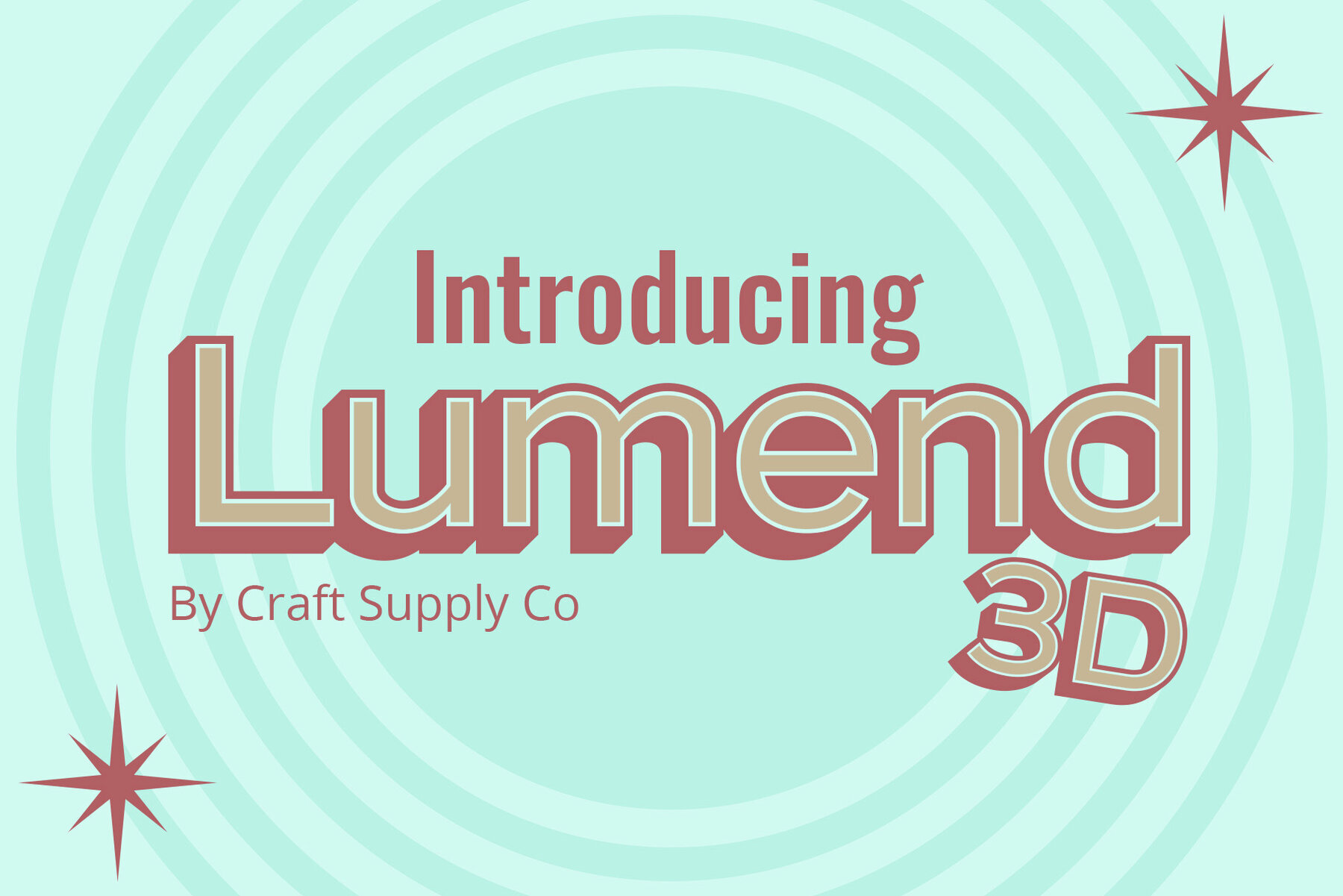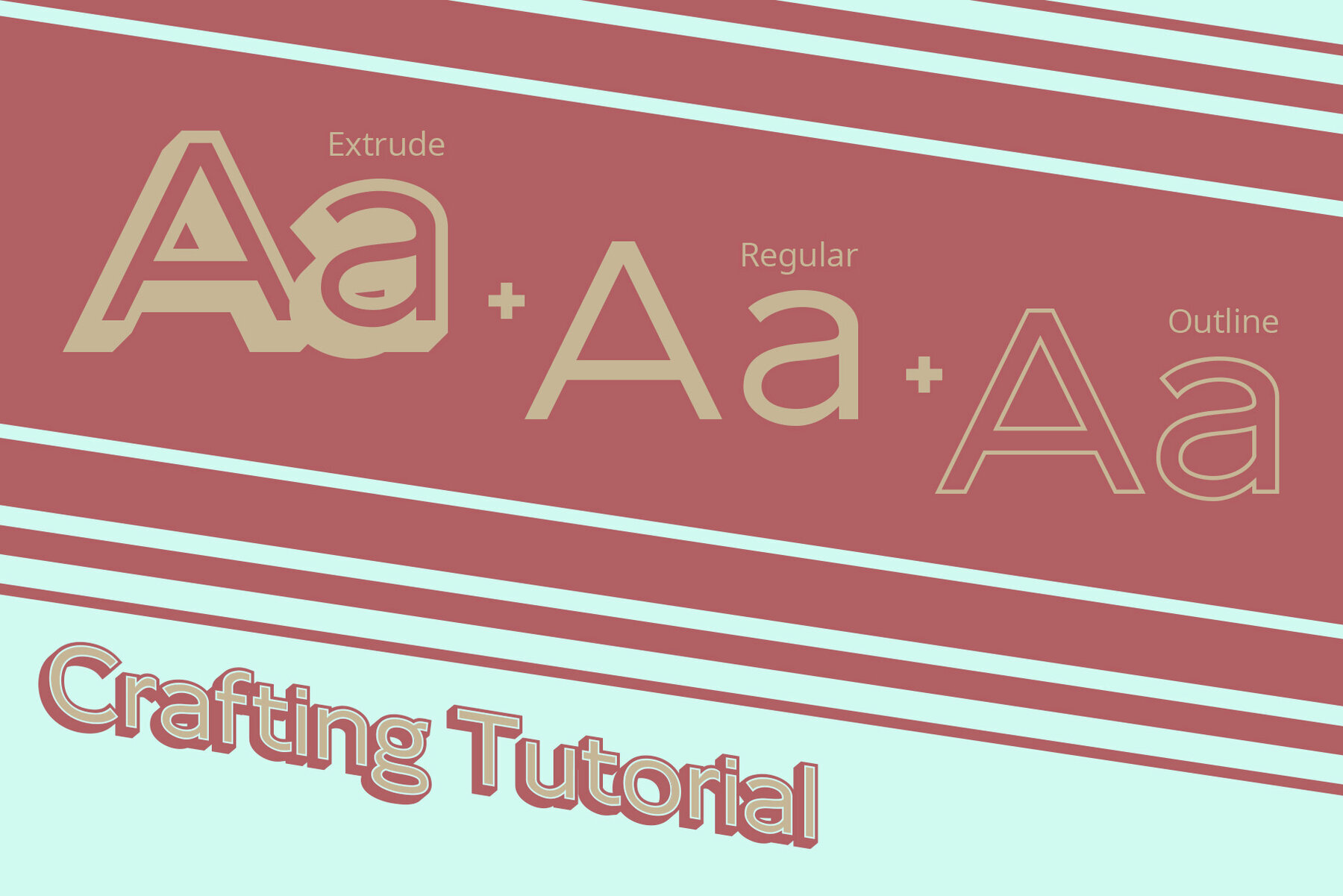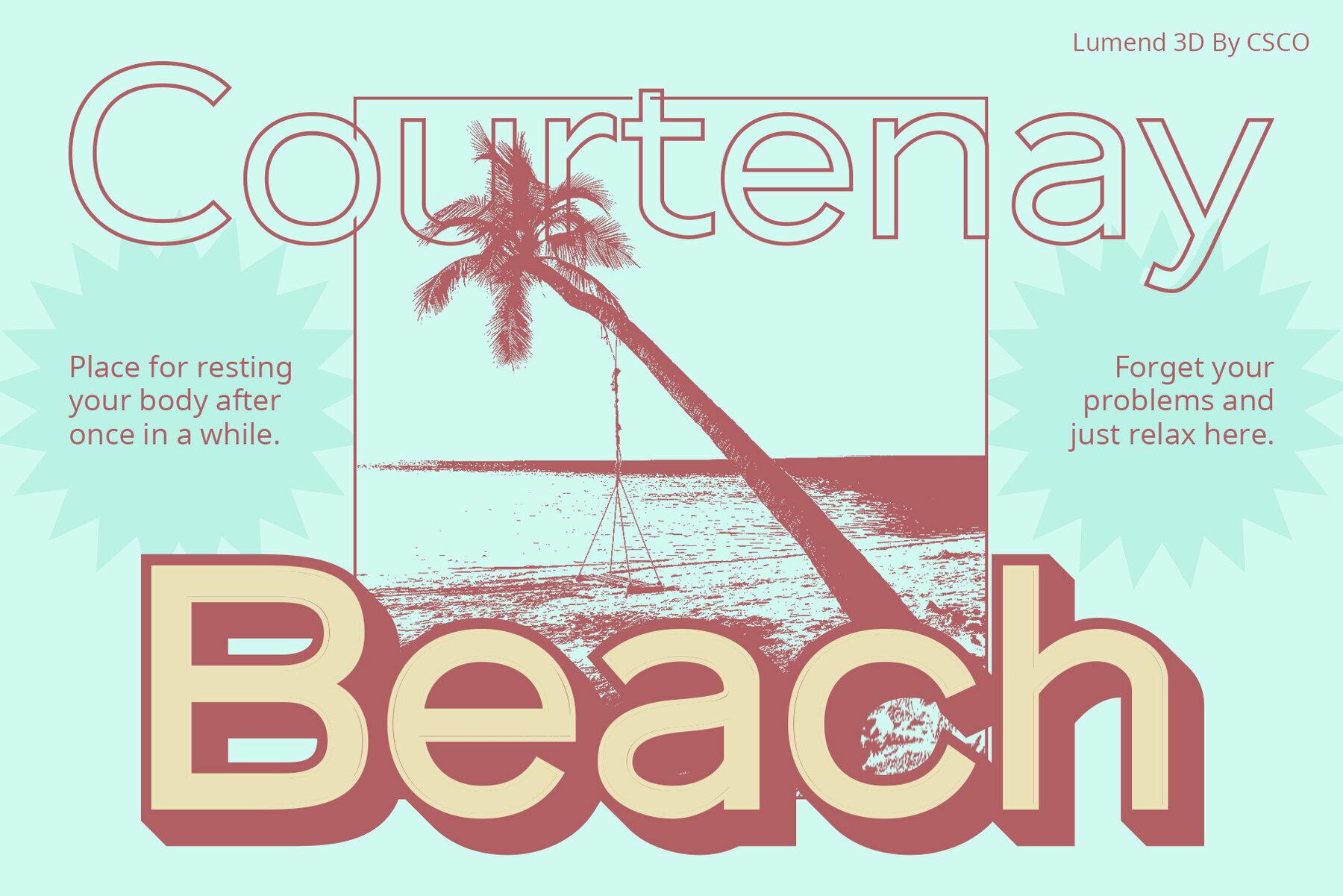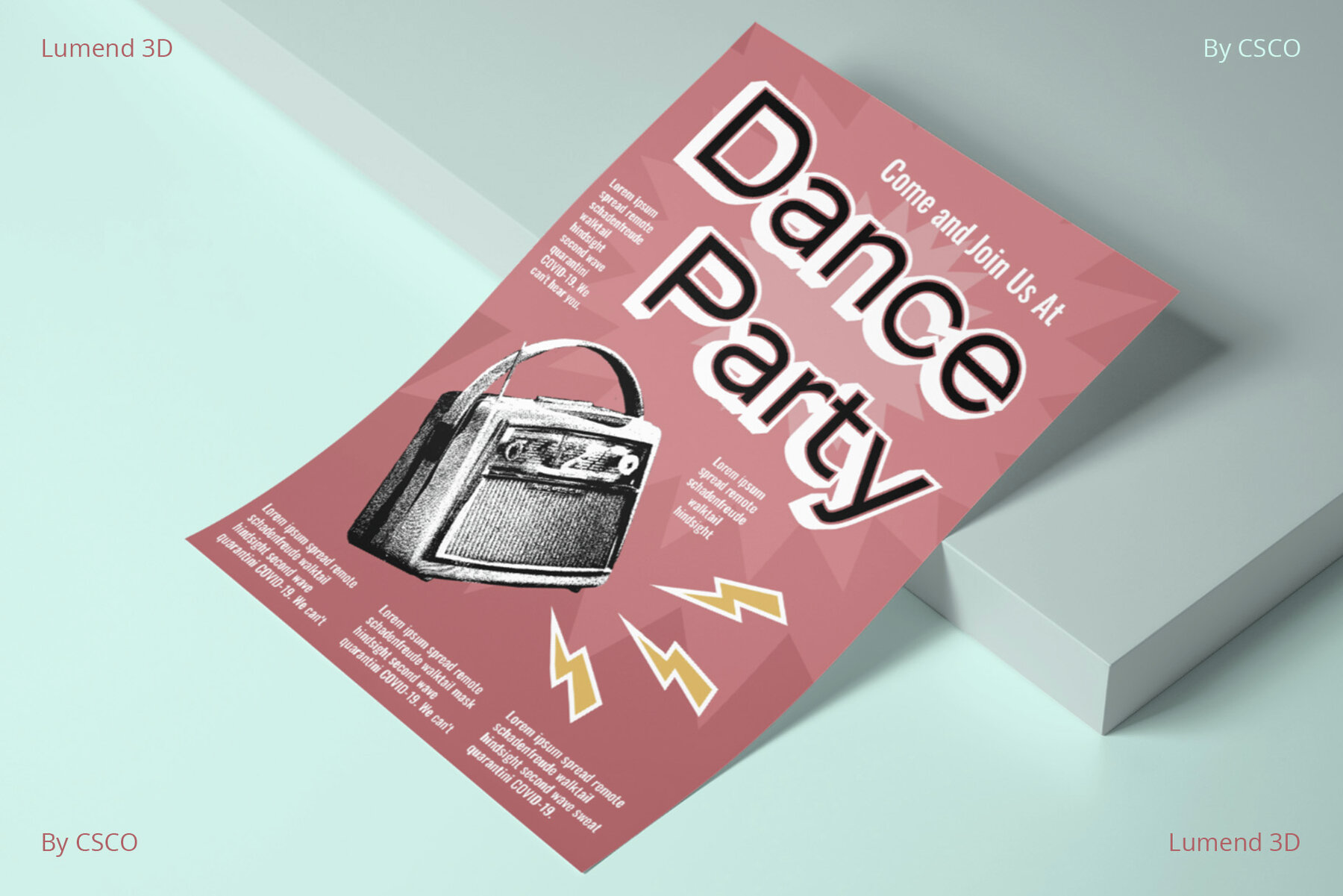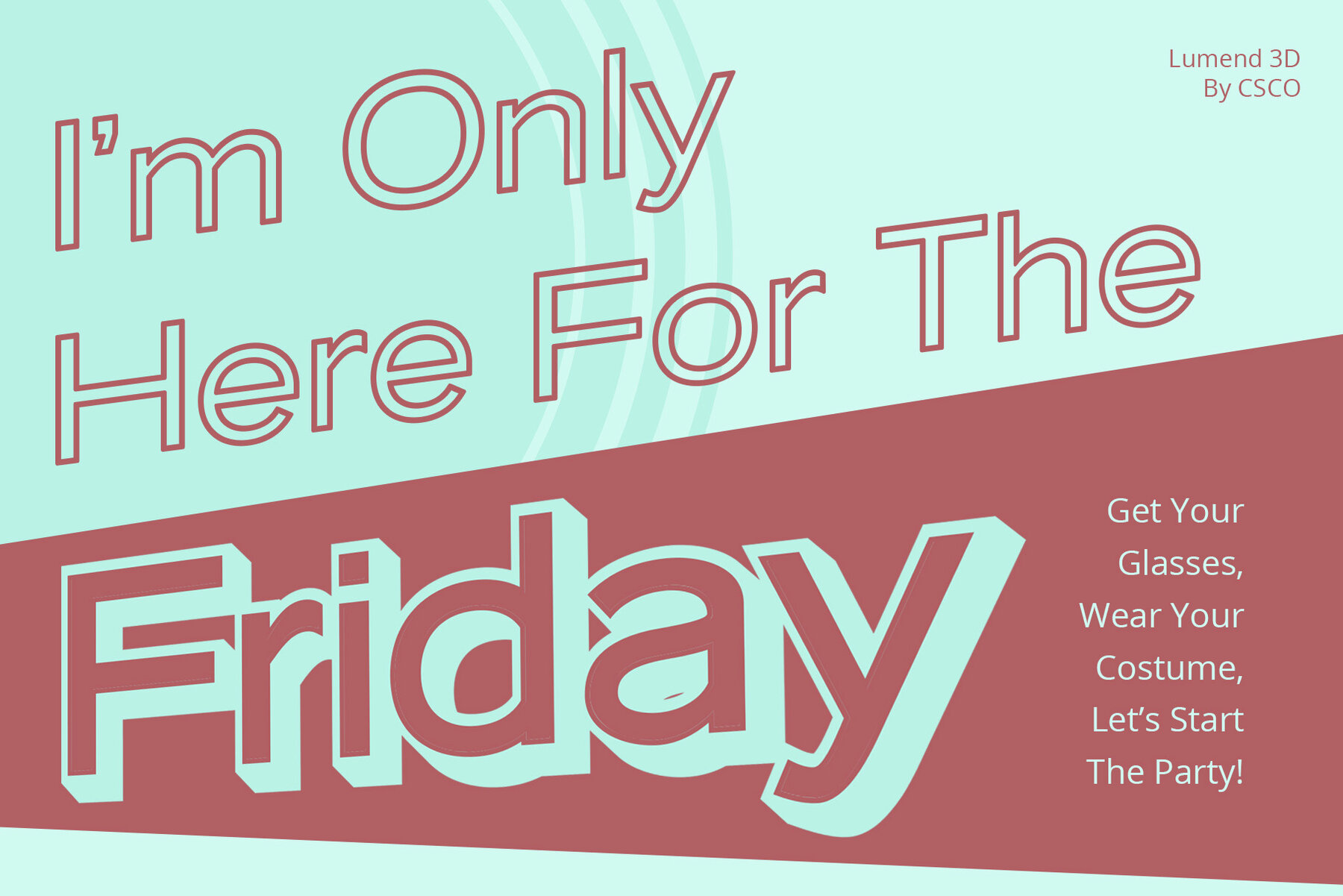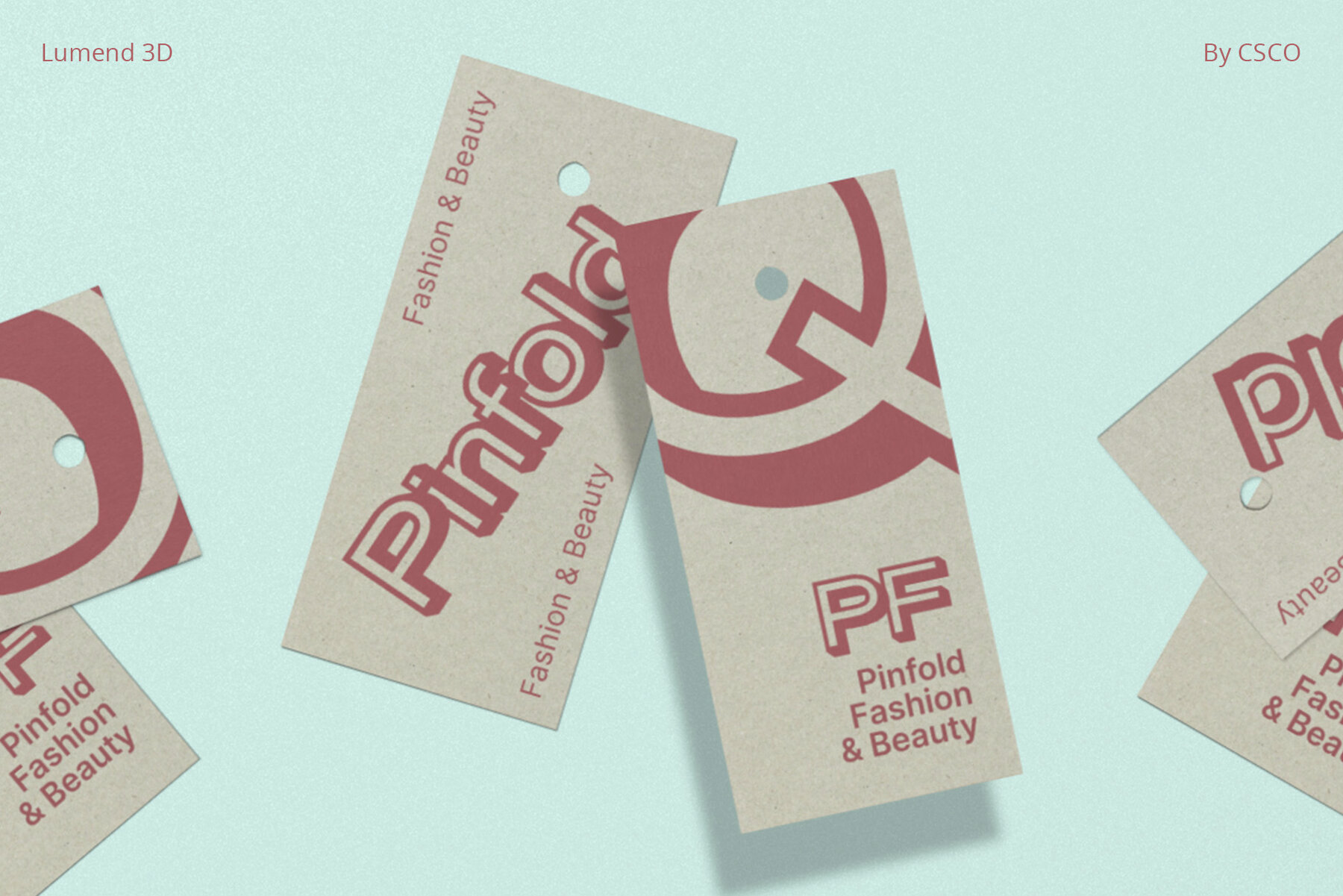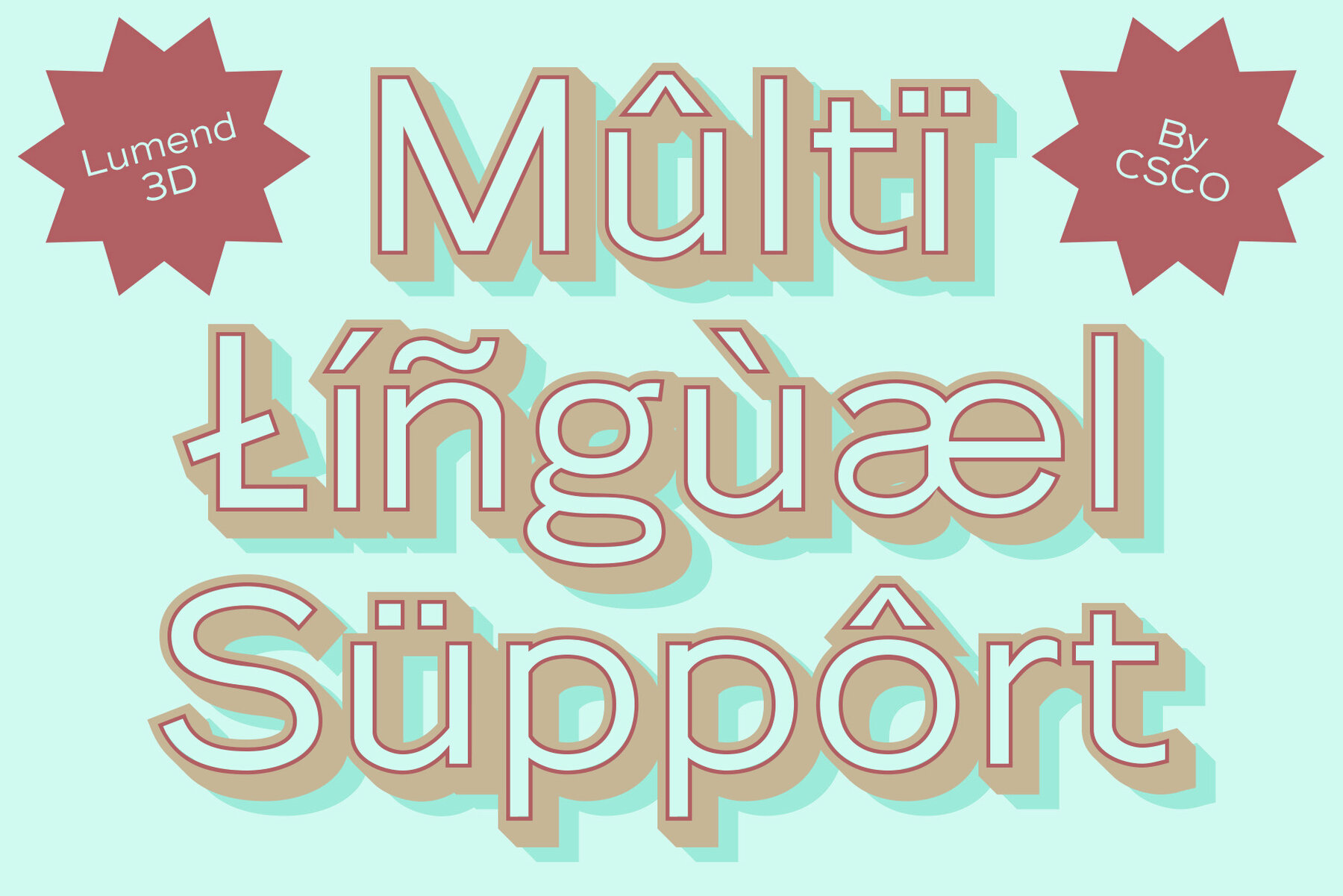
Lumend 3D Font
Lumend 3D is a meticulously crafted sans-serif font designed for a clean and professional aesthetic, offering seamless precision in every character. This font transcends the ordinary with its sophisticated use of extrude and outline effects, creating a captivating 3D appearance. Lumend 3D is not just a font; it's a statement of professionalism. Its sharp lines and refined shapes make it perfect for corporate presentations, reports, and any design requiring a sleek, modern touch. While exuding professionalism, Lumend 3D's versatility adapts seamlessly to various design contexts, providing a polished look for a wide range of applications. You can use this typeface without needing any specialized software. If you have any inquiries or need assistance, please feel free to contact us. We appreciate your support in enhancing your creative projects! Best regards, Craft Supply Co.Lumend 3D: Professional Sans-Serif Typography
Depth Redefined
Professional Sophistication
Versatility Unleashed